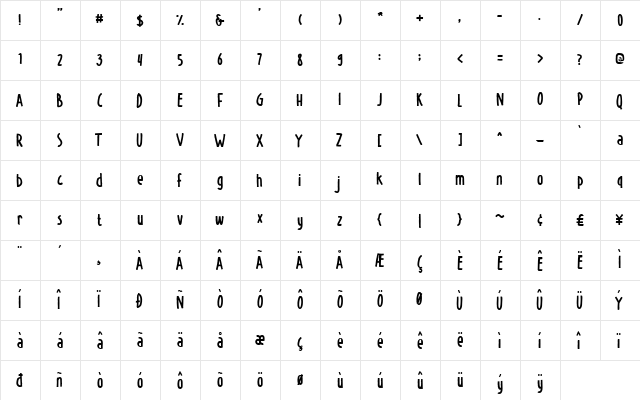
Going Smooth Regular
| Designer | Sahirul Iman, Semarang, alexatype |
Design Context for Going Smooth Typeface
Going Smooth offers clean, dependable letterforms without strong stylistic allegiance, making it a practical choice for designers who need flexibility.